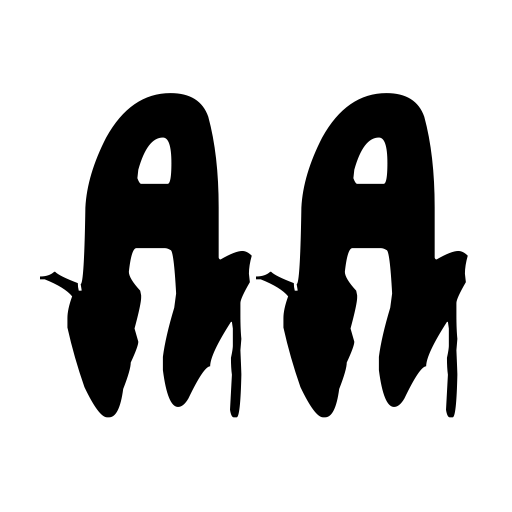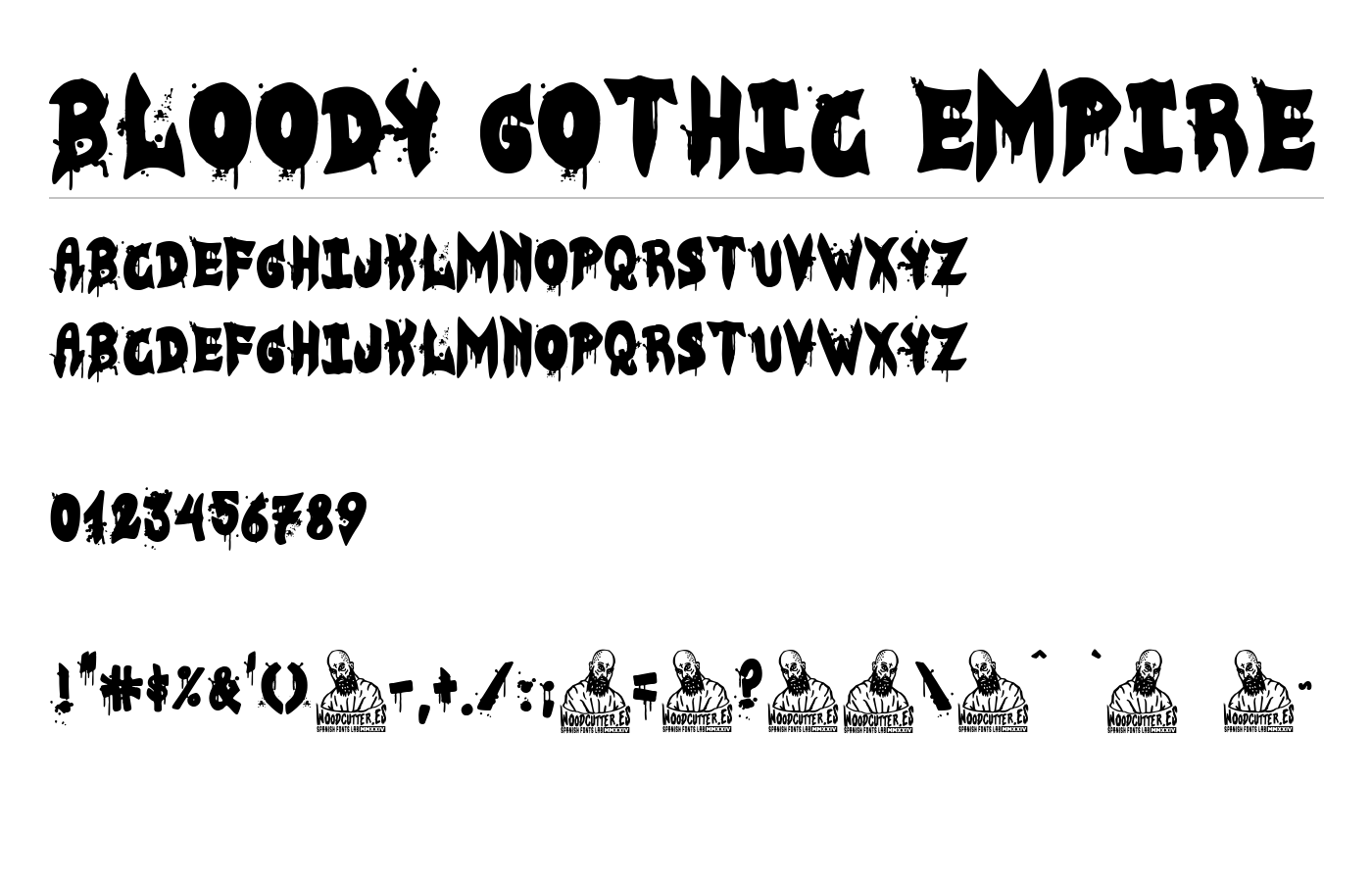
Bloody Gothic Empire is a bold, decorative display font with a rough, dripping effect that evokes a spooky, horror-inspired vibe. Its chunky, irregular letterforms and ink-splattered details give it a strong, edgy personality perfect for Halloween themes, horror posters, or any design seeking a dramatic, eerie atmosphere. This font stands out best in headlines and titles where its unique style can capture immediate attention.
Bloody Gothic Empire Font
About Bloody Gothic Empire Font